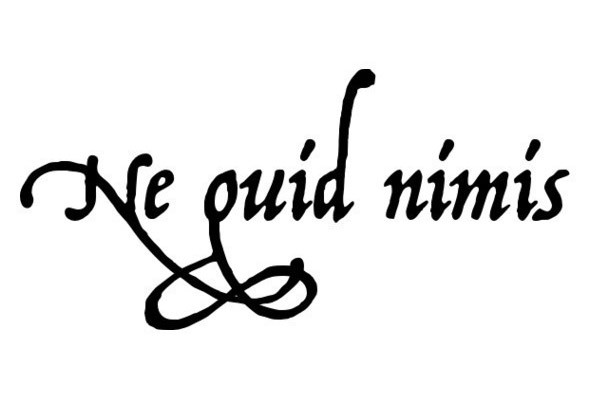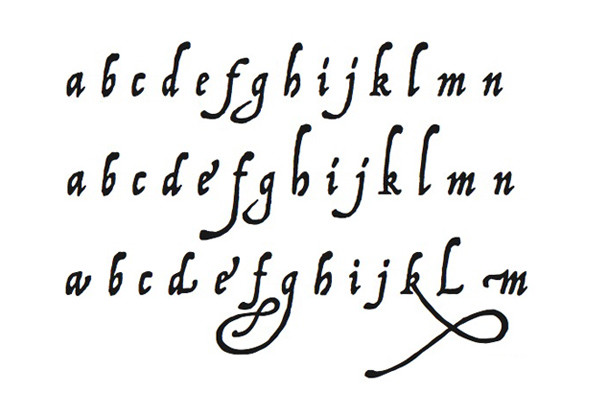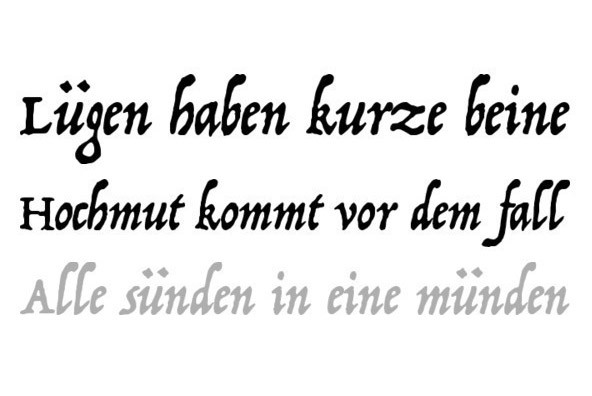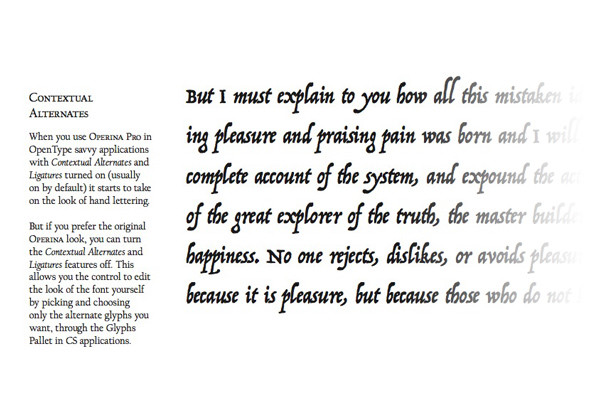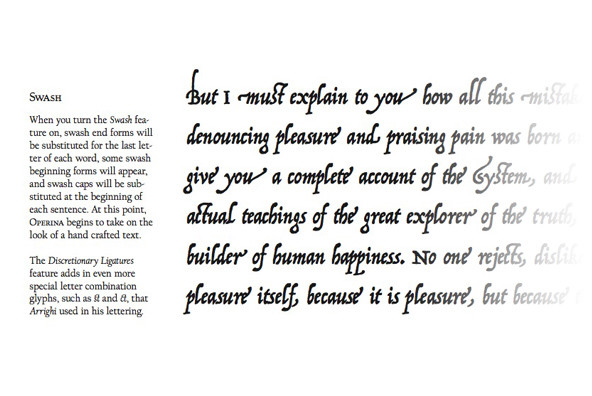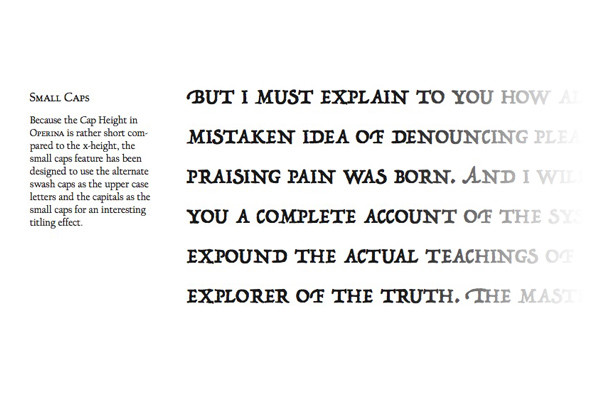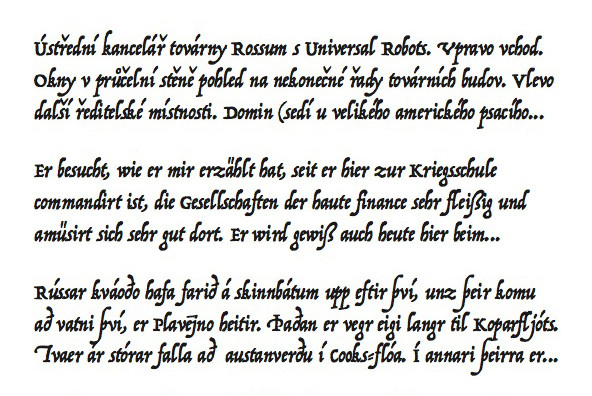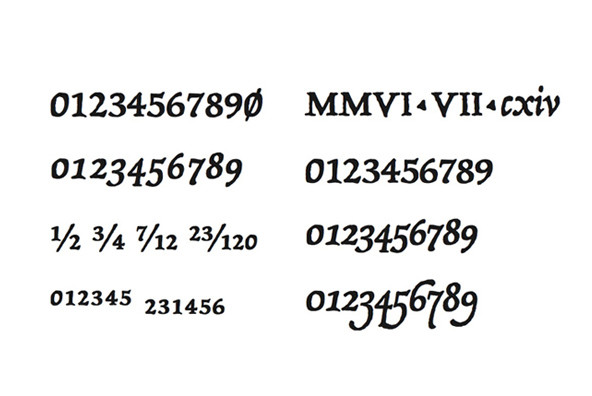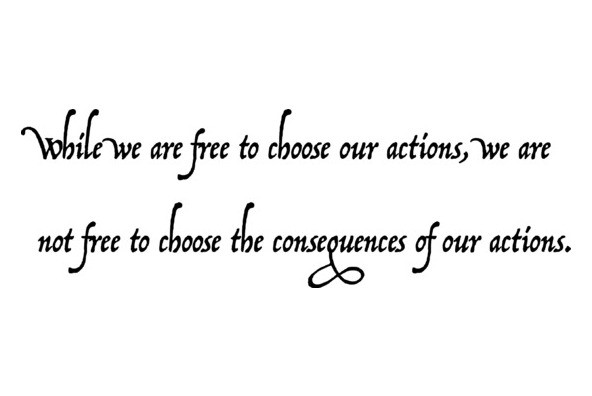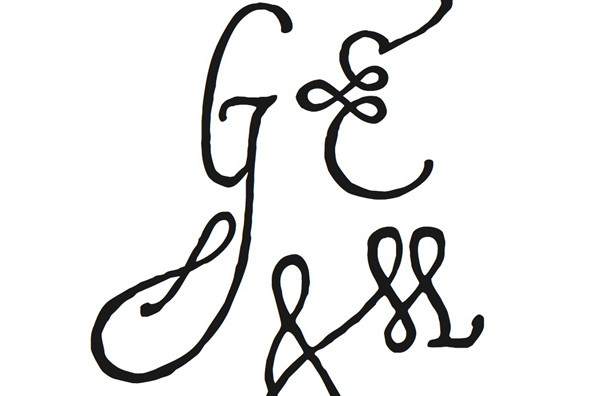
The 16th century calligrapher, Ludovico degli Arrighi, is revered as one fo the finest calligraphers ever. His writing book 'La Operina' (Rome 1522), is still influential today.
The 16th century calligrapher, Ludovico degli Arrighi, is revered as one fo the finest calligraphers ever. His writing book 'La Operina' (Rome 1522), is still influential today. This set features three variations of Arrighi's script that can be used interchangeably.